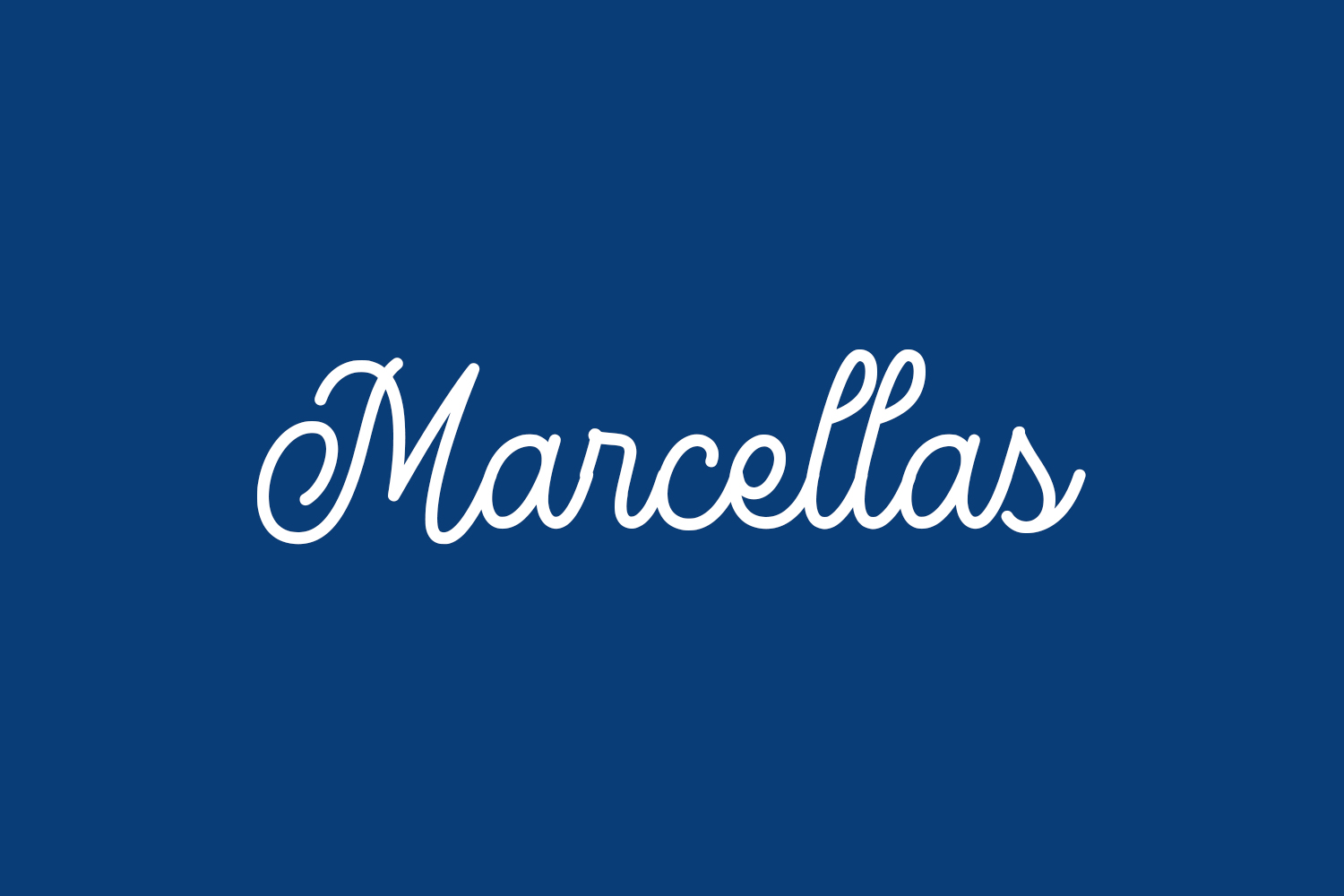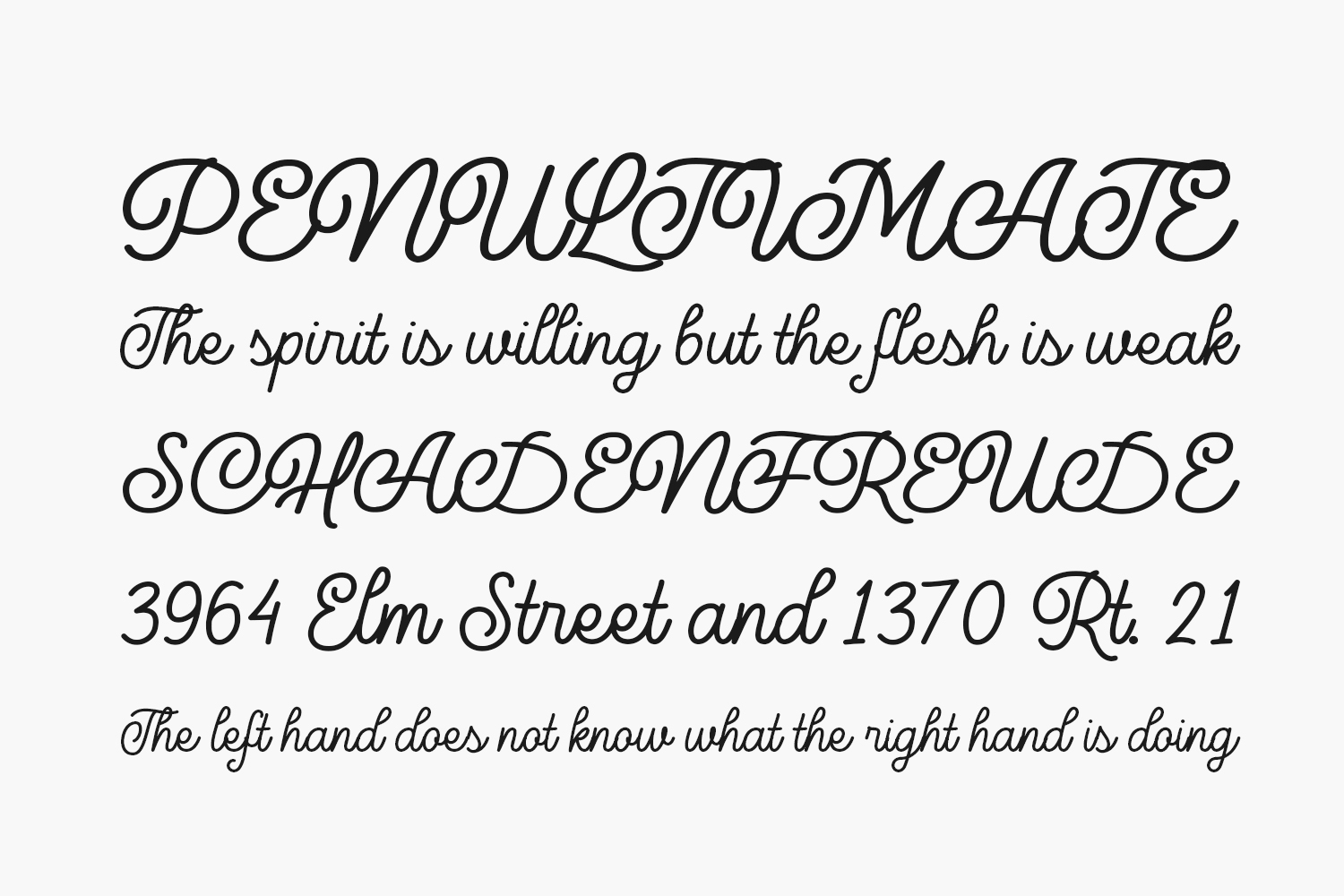
Marcellas Free Font is a classy handwritten font, perfect for designers and crafters who wish to add a little magic to their creations. Sweet, dainty, and joyful. this font is ideal for wedding invitations, cards, and any creative project that needs a beautiful handwritten touch. Marcellas Free Font is free for personal use only. Please purchase the full version for commercial use.